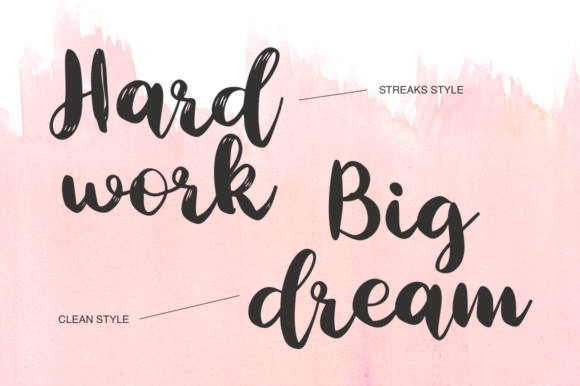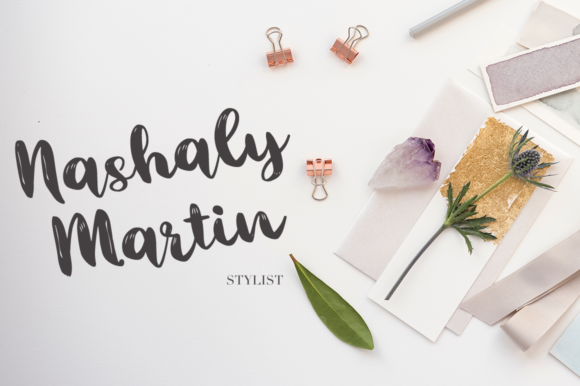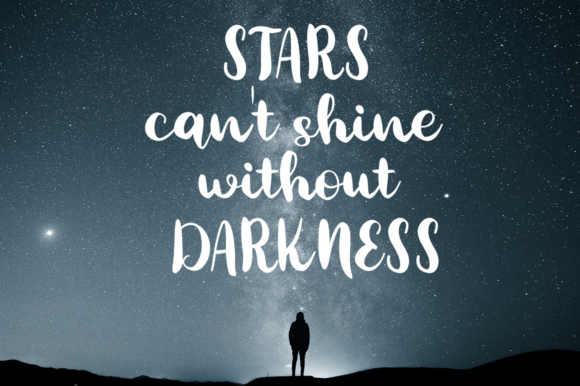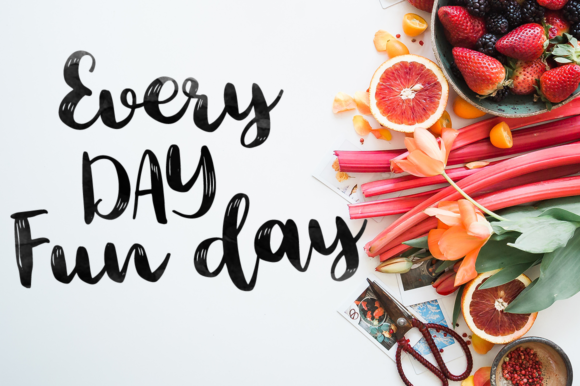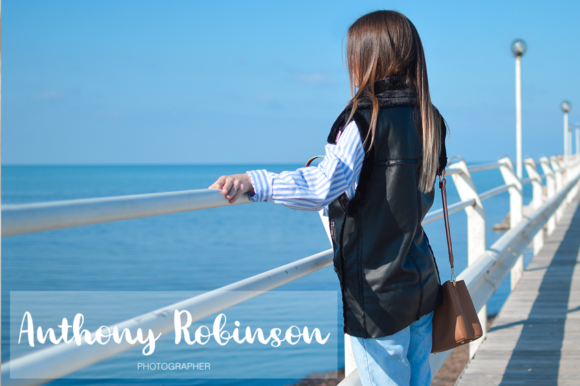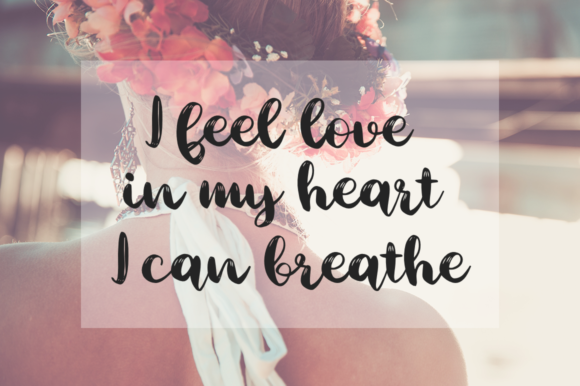
Belorian Font
About Belorian Font
The Belorian is a new, fresh, handmade calligraphy font. It’s ideal for branding and decorating your unique projects.